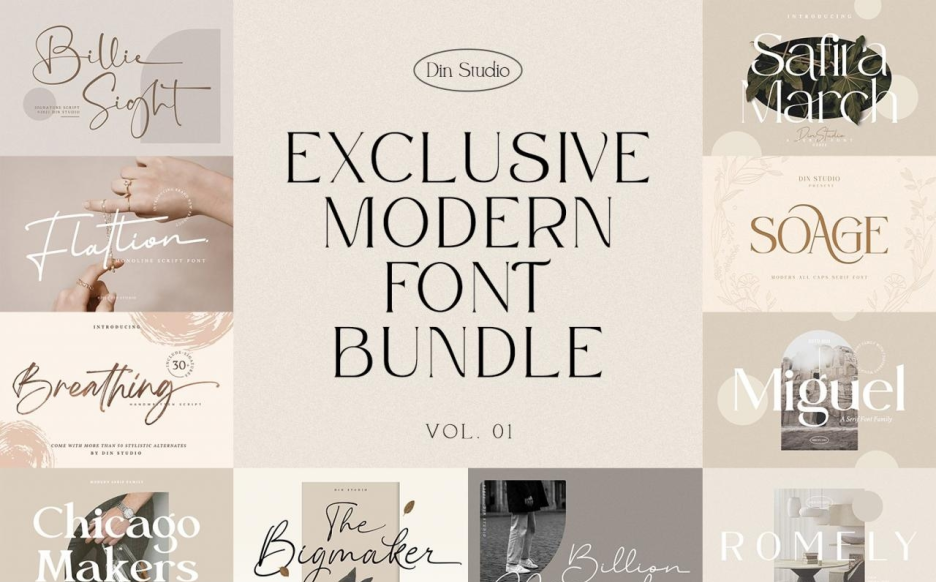
Exclusive Modern Font Bundle
Elevate your design projects with our Exclusive Modern Font Bundle, featuring a carefully curated selection of contemporary typefaces. This bundle includes a variety of font styles and weights, providing versatility for any creative endeavor.
• Diverse font styles: serif, sans-serif, script, and display
• Multiple weights for each font, ensuring flexibility
Each font in this bundle is designed with attention to detail, offering clean lines and modern aesthetics. Perfect for branding, logos, web design, print materials, and user interfaces.